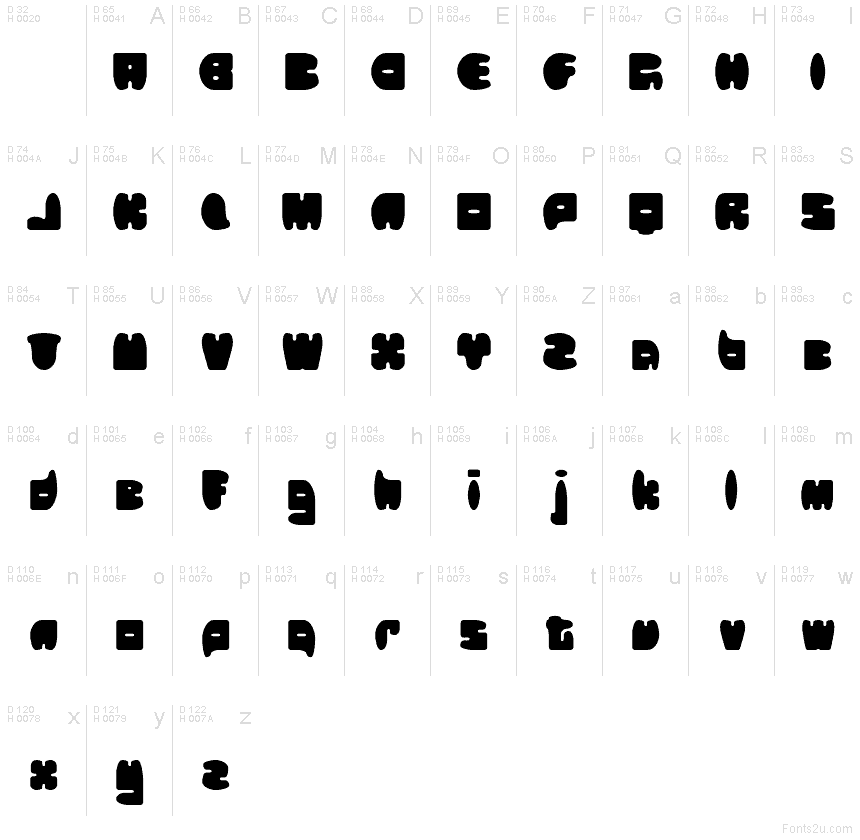
CSRoxyDrawn-Regular Demo
CS Roxy font from Craft Supply Co. is a chunky geometric display typeface. The bold font effectively combines a modern and retro-inspired playful vibe that is joyful, friendly, and warm.
Use this as a decorative title font to prepare magazine or newspaper covers, games, apps, social media posts, notebooks fronts, invitations cards, food boxes labels; you name it.